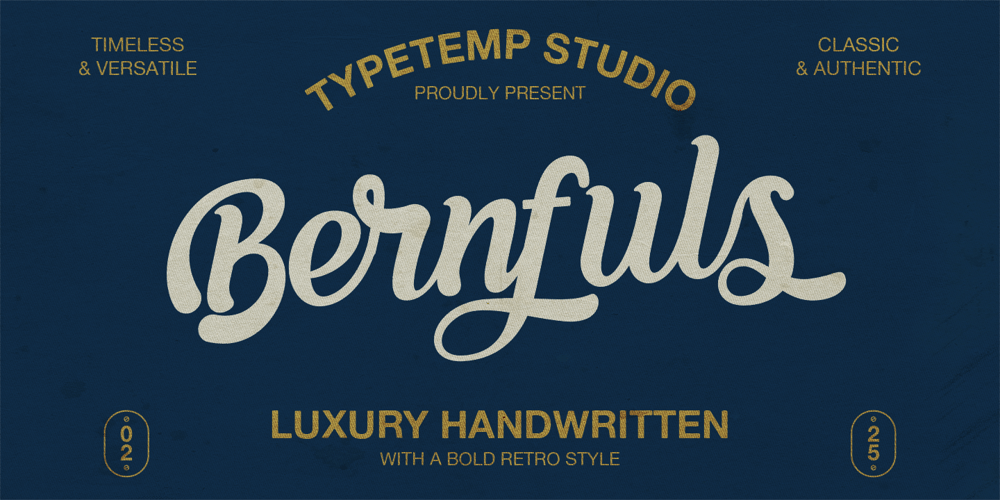
Bernfuls Script
Bernfuls Script font
Bernfuls Script Font Family was designed by Haris Purnama Putra, Egi Ahmad Mufid and published by Typetemp Studio. Bernfuls Script contains 1 styles and family package options. Bernfuls Script Font is a stylish font It has both modern and vintage look. Comes with alternatives and ligatures, helps to create stunning logos, quotes, posts, blog posts. branding projects, magazine imagery, wedding invitations, and much more.I really hope you’ll get pleasure using Bernfuls font and it will be perfect addition to your font collection!Contact me with an inbox message If you have any question.Thank you! Happy Creating.